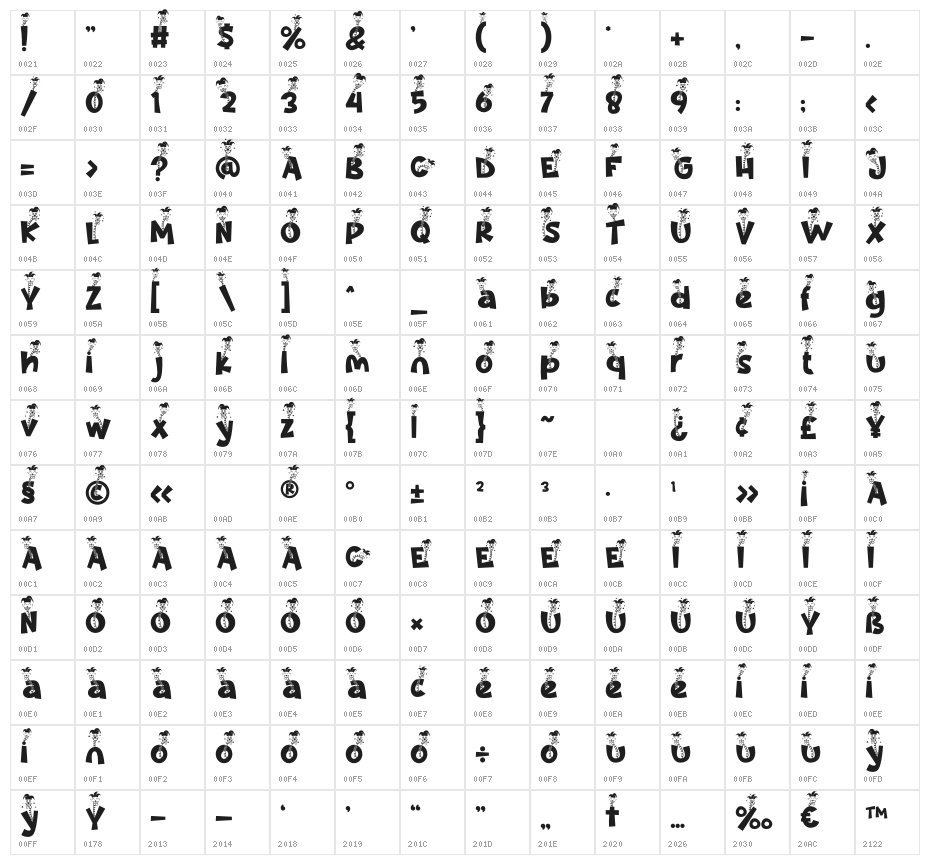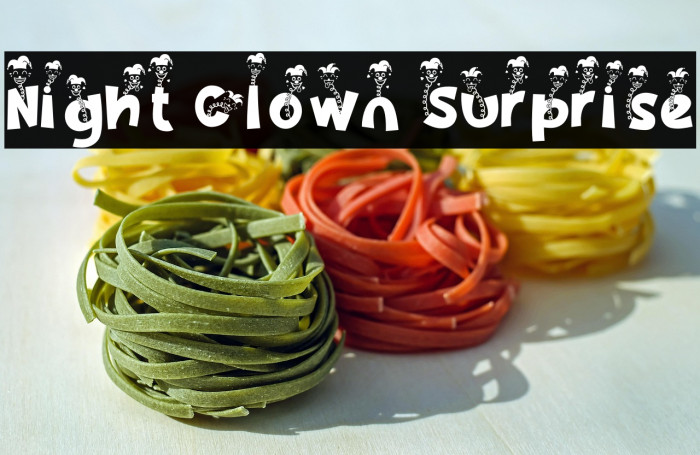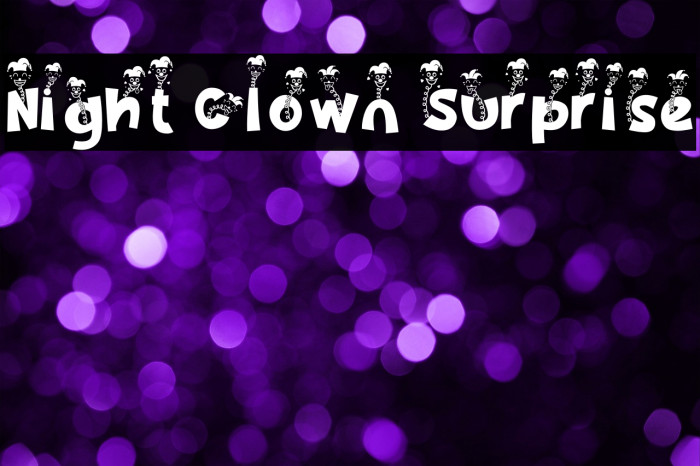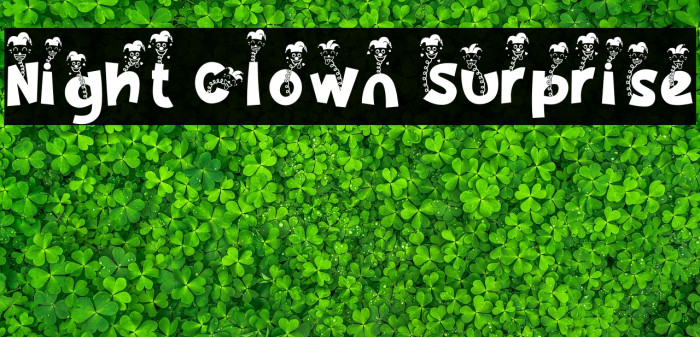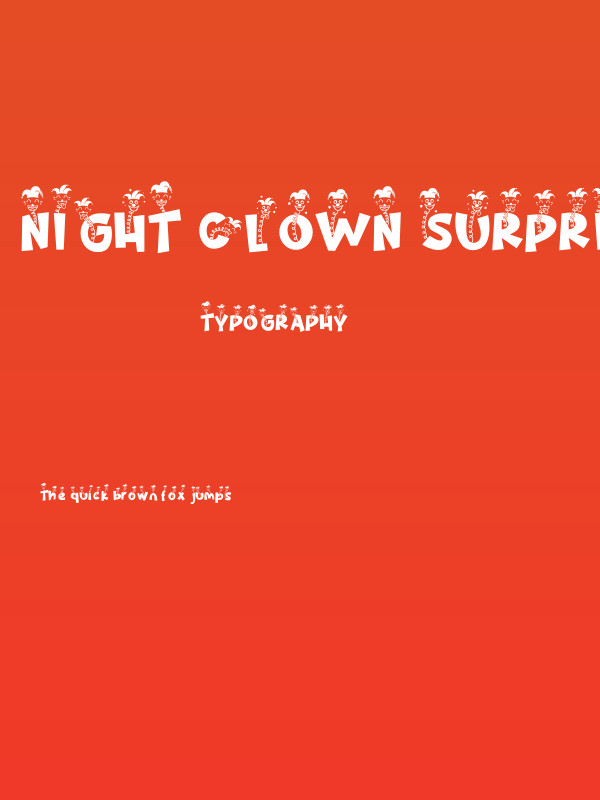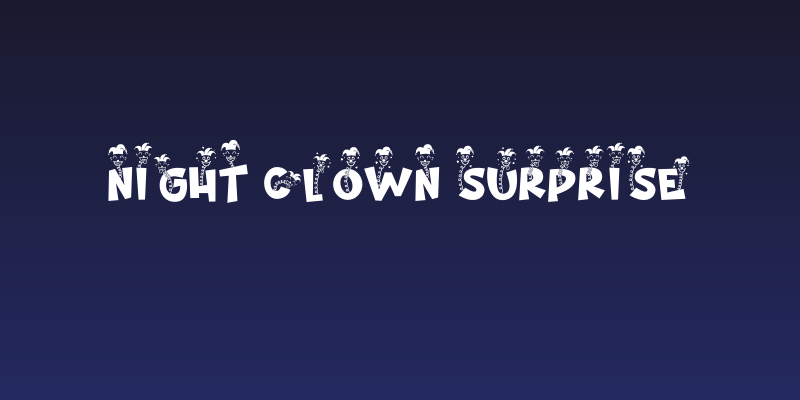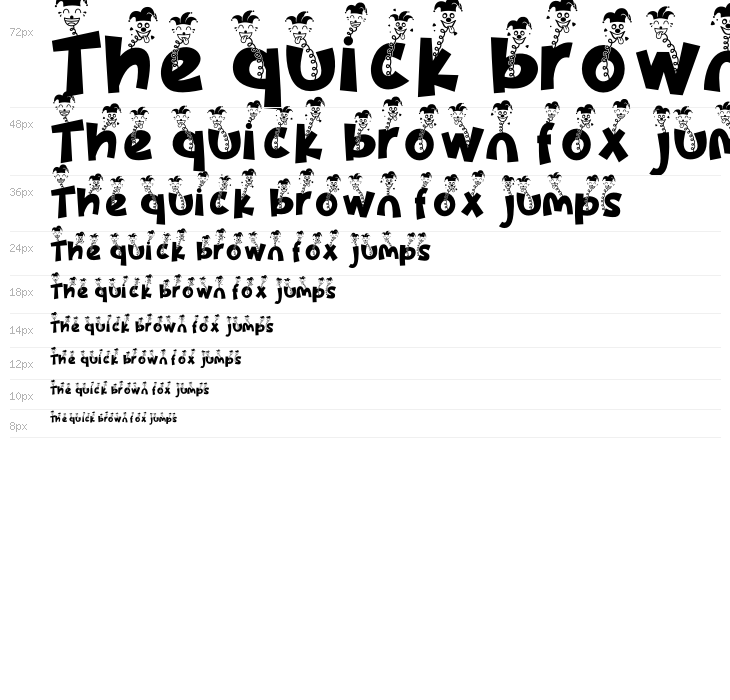
Night Clown Surprise Font
Night Clown Surprise Description
This playful and whimsical font features a unique design where each character is accompanied by a cartoonish clown face. The letters are bold and slightly irregular, adding to the quirky and fun aesthetic. The font is highly decorative, with exaggerated curves and playful elements that make it stand out. The numbers and special characters follow the same style, maintaining consistency throughout the set. This font is perfect for projects that require a lighthearted and entertaining touch.
| Proposed Projects | Ideal for children's party invitations, circus-themed events, playful branding, or any project that requires a fun and whimsical touch. |